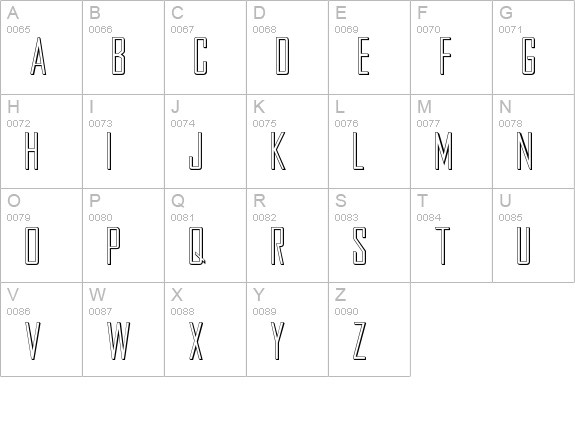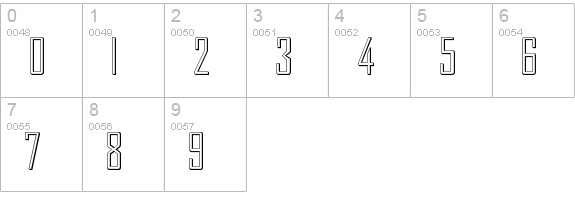
HollowGothic Caps Medium Font Details
HollowGothic Caps Medium is a balanced, medium-weight variant in the HollowGothic typeface family \xE2\x80\x94 well suited to sub-headlines, navigation, and balanced editorial work.
HollowGothic Caps Medium is a striking and elegant font that exudes a sense of mystery and sophistication. With its intricate hollow and gothic-inspired design, this font is perfect for creating eye-catching headlines, logos, and branding materials. The sharp angles and clean lines of HollowGothic Caps Medium give it a modern yet timeless appeal, making it suitable for a wide range of design projects. The best part? HollowGothic Caps Medium is available for free download at FontsMarket.com. This means you can easily add this unique and captivating font to your collection without any cost. Whether you're a designer looking to elevate your projects or a creative individual seeking to make a statement, HollowGothic Caps Medium is a must-have font that will surely impress. Download it now and unleash your creativity with this exquisite typeface.